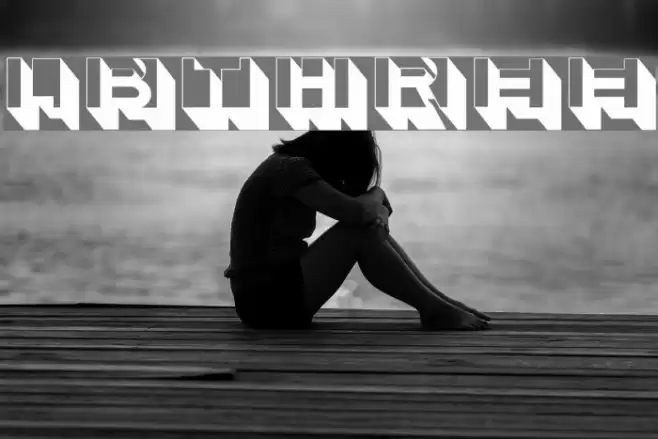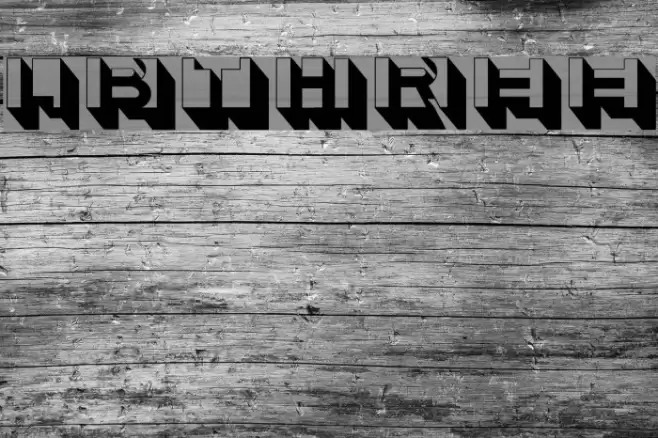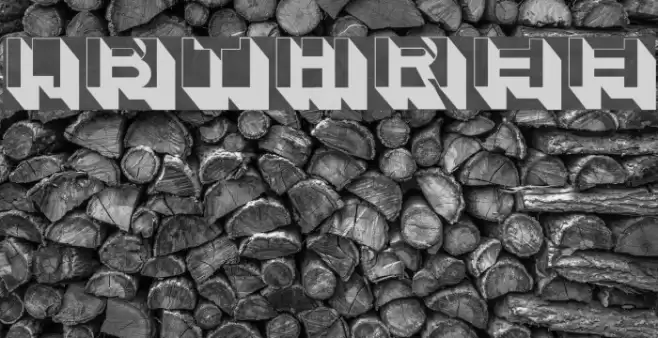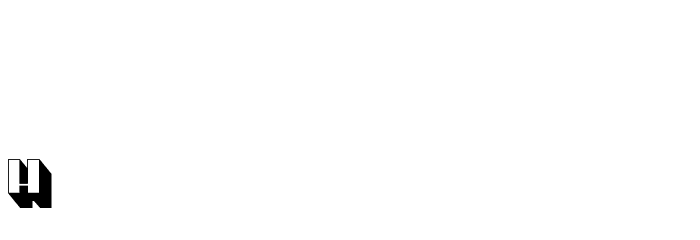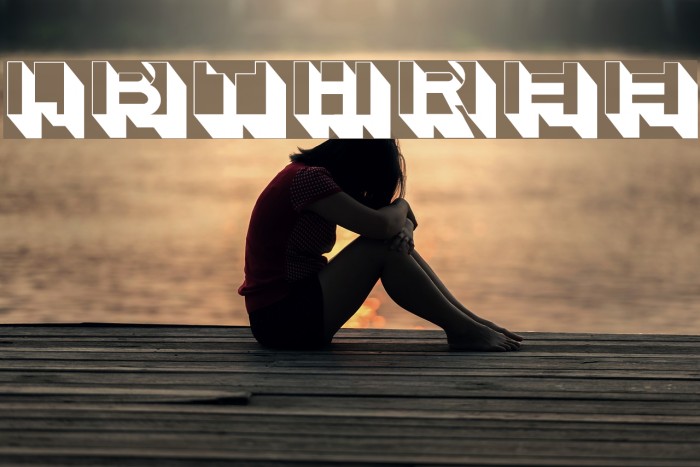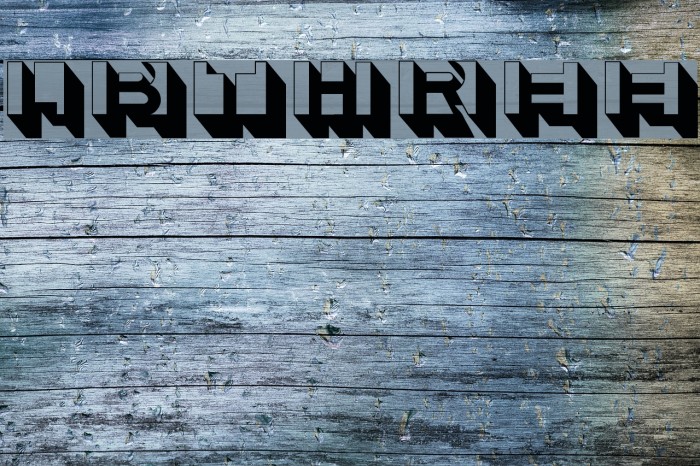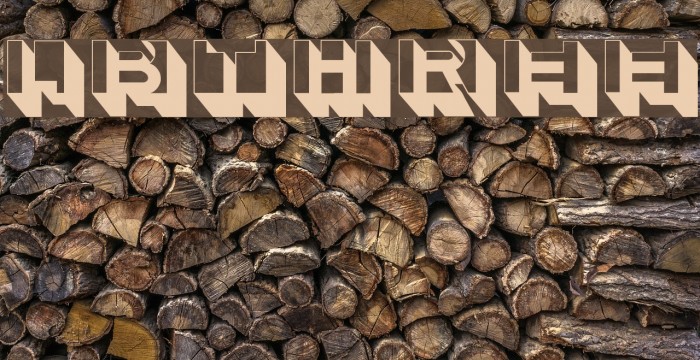
LetterBuildingsTHREE Font
LetterBuildingsTHREE Description
This font features a bold, three-dimensional design that resembles architectural structures or buildings. Each letter is crafted with a shadow effect, giving it a sense of depth and solidity. The style is highly geometric, with sharp angles and clean lines, creating a striking visual impact. The uppercase letters are particularly prominent, with a strong presence that commands attention. This font is ideal for projects that require a bold and modern aesthetic, such as branding, posters, or any design that seeks to convey strength and stability.
A bold, three-dimensional font with a geometric, architectural style.
- Proposed Projects: Ideal for branding, posters, and designs that require a strong, modern aesthetic.